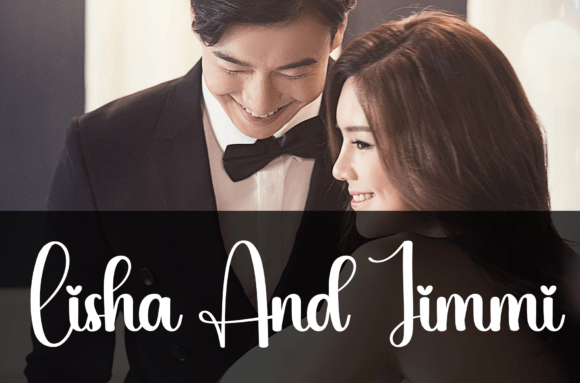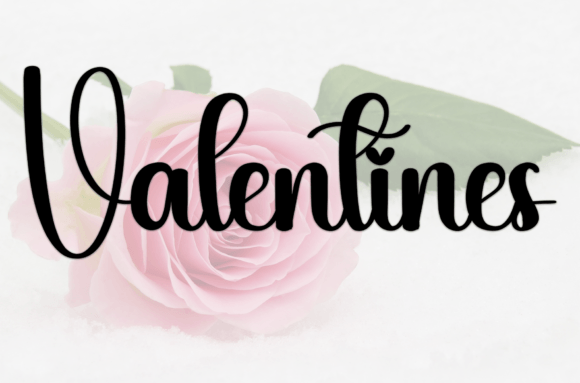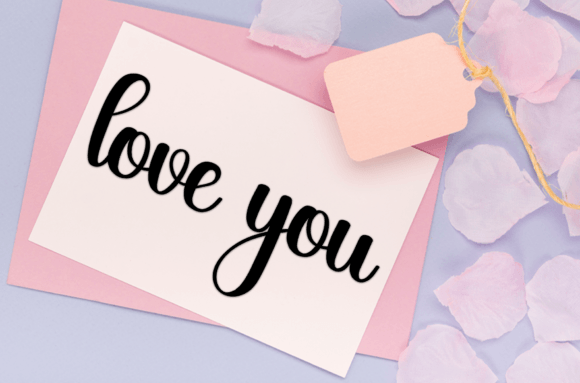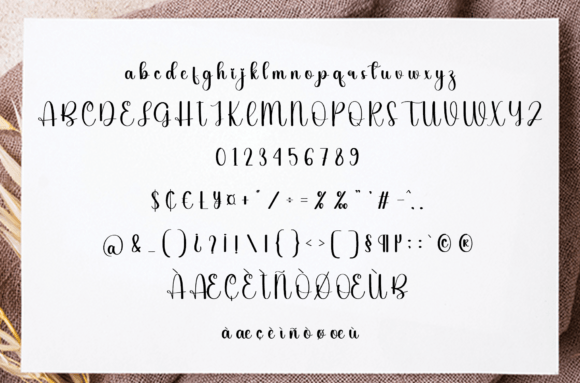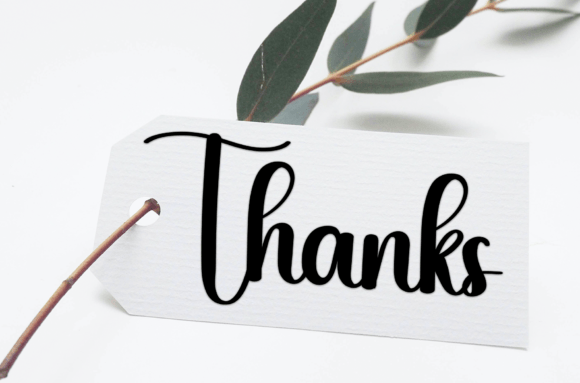
Black Line
About Black Line
Black Line is a sweet and friendly handwritten display font. Cute and creative, this font is ideal for writing wedding invitations, cards, or any other design that might need a fun touch!